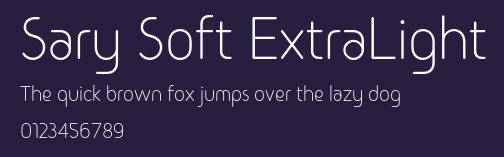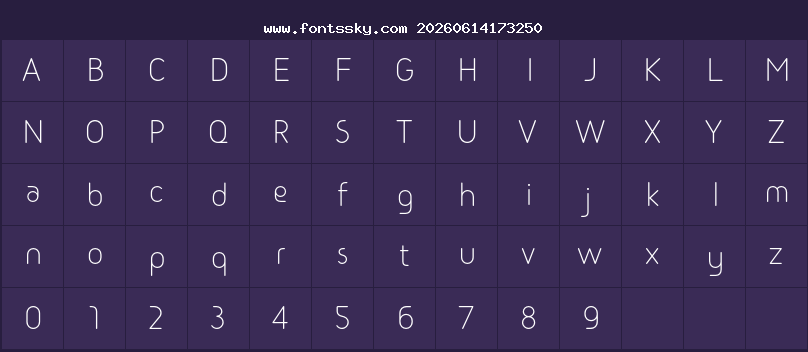
• Font Name: Sary Soft ExtraLight
• Full Font Name: SarySoft-ExtraLight
• PostScript Name: SarySoft-ExtraLight
• Designer: Zainelabdeen Mustafa
• Manufacturer: Zain Mustafa
About Sary Soft ExtraLight.otf
Sary Soft ExtraLight.otf is a modern, elegant sans-serif font designed for ultimate readability and visual harmony. Perfect for branding, headlines, web design, and print materials.